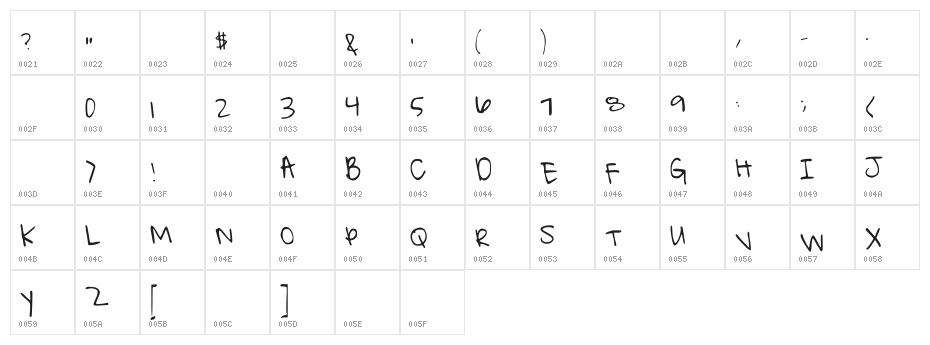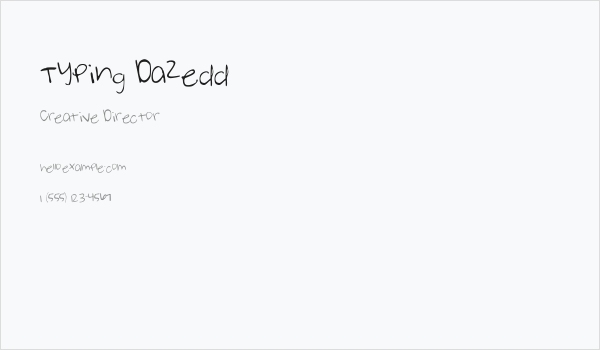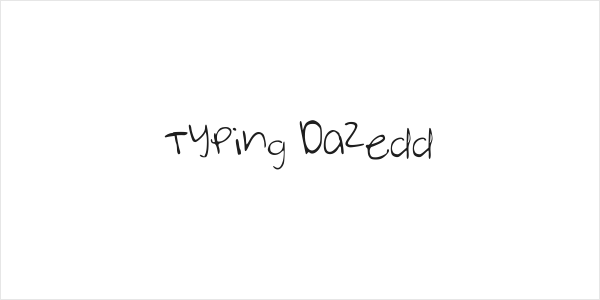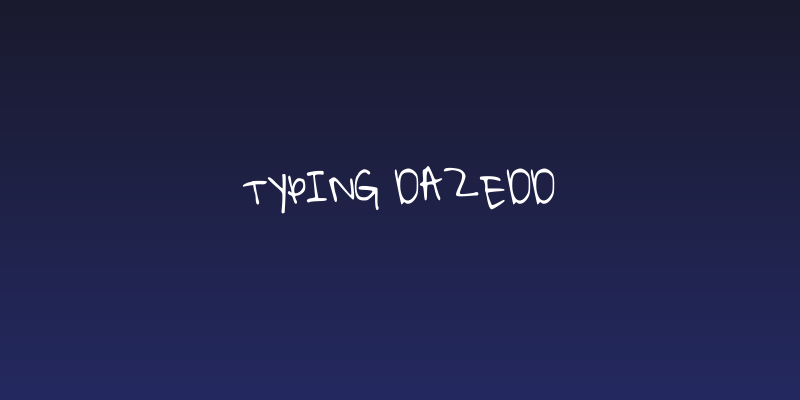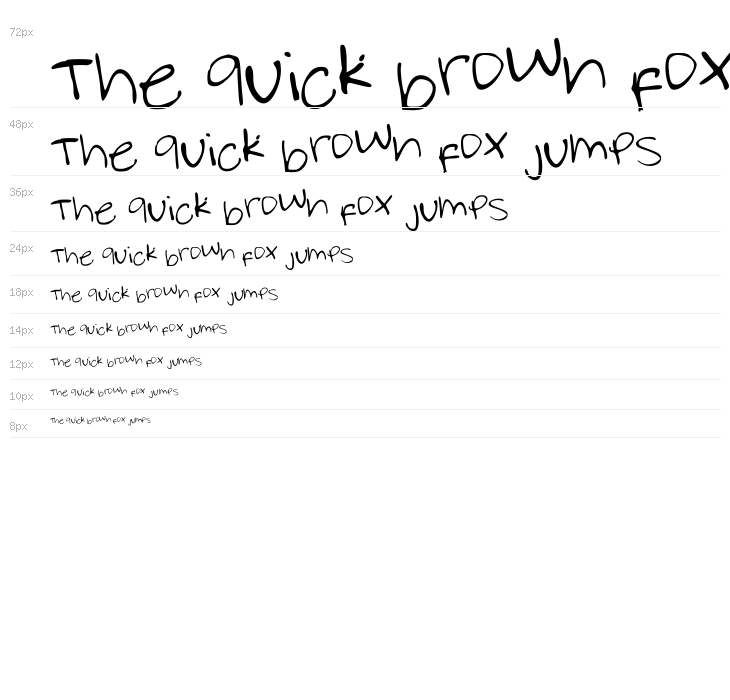
Typing Dazedd Font
Typing Dazedd Description
This font exhibits a playful and informal handwritten style, characterized by its irregular and slightly whimsical letterforms. The strokes are uneven, giving it a casual and approachable appearance. The uppercase and lowercase letters maintain a consistent style, with rounded edges and a slight tilt, adding to its dynamic feel. The numbers and special characters follow the same playful aesthetic, ensuring a cohesive look across all characters. This font is ideal for projects that require a personal touch or a sense of spontaneity.
Overall StyleCasual
Use CaseHeadlines, Informal text, Creative projects
Proposed ProjectsGreat for greeting cards, children's books, casual branding, and social media graphics.